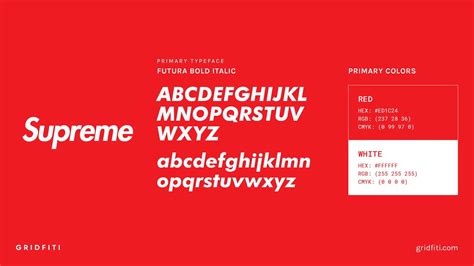
Supreme Font and Supreme Logo
Supreme Font Name. Web supreme font is a font generator that lets you use the font of the clothing brand supreme, which is similar to futura bold.
Web supreme font is a font generator that lets you use the font of the clothing brand supreme, which is similar to futura bold.
Web supreme font is a font generator that lets you use the font of the clothing brand supreme, which is similar to futura bold. Web supreme font is a font generator that lets you use the font of the clothing brand supreme, which is similar to futura bold.